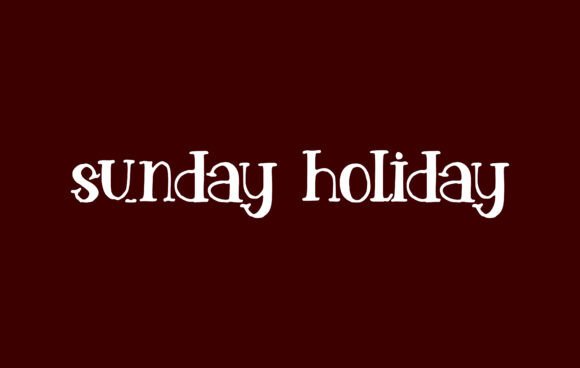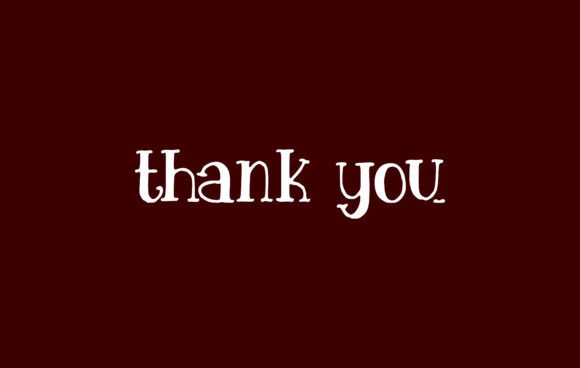
Introduction to Pecos Font
Remember the moment when you stumbled upon the perfect font to elevate your creative project? The moment when everything fell into place, and your design just came alive? For many designers, this moment is what makes all the hard work worth it. And if you’re reading this, chances are you’re on the hunt for that special font to take your designs to the next level.
Enter the Pecos Font, an authentic handwritten font with a romantic touch that’s sure to capture your heart. With its unique, high-quality design, this font is a valuable resource for any designer looking to add a personal touch to their work. Whether you’re working on a magazine headline, social media post, or wedding invitation, the Pecos Font is the perfect design resource to bring your ideas to life.
One of the best things about the Pecos Font is its versatility. You can use it as a title or body text, and it looks great either way. Plus, with a transparent background option, you can easily integrate it into your design without any fuss. And the best part? It’s free to download, making it an accessible design resource for designers of all levels.
Key Features of Pecos Font
- Features a bold and modern design, making it suitable for a wide range of creative applications.
Honest Review: Pecos Font
I recently had the chance to work with the Pecos Font, and I’m excited to share my thoughts on this design resource.
- What works well: ✨ The font’s high quality is evident in its clear, crisp lines and well-balanced characters.
- What works well: ✨ The font is highly customizable, making it perfect for designers who want to add a personal touch to their projects.
- What works well: ✨ The transparent background makes it easy to use with any design element.
However, I did encounter a few limitations while working with the Pecos Font.
- Limitations: ⚠️ The font’s limited character set may not be suitable for projects that require a wide range of special characters.
Tips for Getting the Most Out of Pecos Font
To get the most out of the Pecos Font, use it with a transparent background to create visually appealing designs. Experiment with different font sizes, colors, and combinations to add depth and interest to your creative project.
The Pecos Font is ideal for creating bold and eye-catching headings, titles, and logos. Its unique design makes it perfect for branding, marketing materials, and social media graphics. With its high-quality design and free download, the Pecos Font is a valuable design resource for any creative project.
Dancing Script is a beautiful, cursive font that’s perfect for adding a touch of whimsy to your design. It’s great for use in creative projects such as wedding invitations, birthday cards, and social media graphics. Dancing Script is available for free download and has a transparent background, making it easy to combine with other design elements. Compared to Pecos Font, Dancing Script has a more playful and lively feel, making it suitable for fun and festive projects.
What are the technical specifications of the Pecos Font?